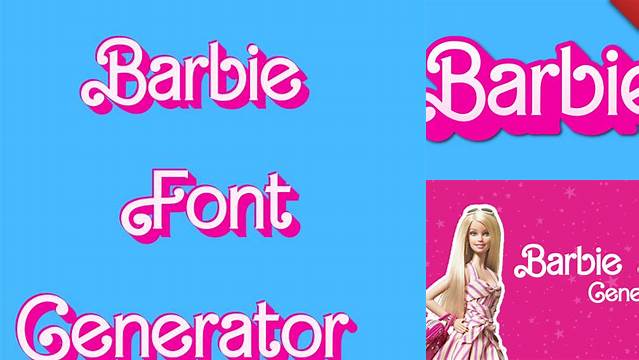
Barbie Font Generator: Free Online Text Design
Hey there, font lovers! Are you a fan of the iconic Barbie logo and its playful, dreamy aesthetic? Do you want to add a touch of that Barbie magic to your own designs, social media posts, or creative projects? Well, you're in luck! In this article, we're diving into the world of Barbie font generators, exploring how you can create your own stunning text inspired by the famous brand, all for free online. So, buckle up and let's get started!
What is the Barbie Font?
Before we jump into the generators, let's talk about the font itself. The Barbie font is instantly recognizable, a key element of the brand's identity. It's characterized by its bold, rounded letters, a playful and whimsical feel, and a touch of retro charm. Think of it as bubbly, energetic, and totally Barbie! The font has evolved over the years, but it has always maintained its signature fun and stylish personality. Understanding the nuances of the Barbie font, like its curves, thickness, and overall vibe, will help you appreciate the power of these online generators and how they can help you replicate that iconic look. Whether you're designing a party invitation, a social media graphic, or a fun logo, using a font that captures the essence of Barbie can instantly add a touch of glamour and playfulness.
Why Use a Barbie Font Generator?
Now, you might be wondering, why use a Barbie font generator? Can't I just download the font? Well, sometimes it's not that simple. Official brand fonts can be expensive or have licensing restrictions. That's where these generators come in handy! They offer a quick, easy, and often free way to create text that resembles the Barbie font. Think of them as a shortcut to getting that stylish look without the hassle of searching for and installing specific fonts. Plus, many generators offer customization options, allowing you to tweak the text with different colors, sizes, and effects. This means you can create unique designs that capture the spirit of Barbie while still being original. For anyone looking to add a touch of Barbie magic to their projects without breaking the bank, a Barbie font generator is a fantastic tool.
Top Free Barbie Font Generators Online
Okay, let's get to the good stuff! I've rounded up some of the best free Barbie font generators online that you can use to create your own amazing text. These tools are user-friendly, and most require no downloads or installations, making them super convenient. Here are a few of my favorites:
1. FlamingText
FlamingText is a popular online text generator that offers a wide variety of font styles and effects, including some that closely mimic the Barbie font. The interface is intuitive, and you can easily customize your text with different colors, gradients, and shadows. You can start creating eye-catching graphics by simply typing in your text, choosing a Barbie-inspired font from their extensive library, and then playing with the customization options until you achieve your desired look. The real strength of FlamingText lies in its versatility; whether you need a logo, a banner, or just some fancy text for a social media post, this generator has you covered. Plus, it's completely free to use for basic designs, making it a perfect choice for hobbyists and small businesses alike. It's a fantastic resource for anyone looking to add a professional touch to their projects without the need for expensive software or design skills. Guys, you should really check this one out!
2. Font Generator Online
Font Generator Online is another great option for creating Barbie-inspired text. This tool provides a simple interface where you can type your text and then browse through a selection of generated font styles. While it might not have an exact replica of the Barbie font, it offers several fonts that capture the same playful and bubbly vibe. This platform is particularly useful for quickly generating a variety of text styles, allowing you to easily compare different options and choose the one that best suits your project. In addition to its ease of use, Font Generator Online stands out for its sheer variety of styles. From elegant scripts to bold, cartoonish fonts, you're sure to find something that catches your eye. Customization options are also available, letting you tweak the size, color, and even add effects like shadows and outlines. Whether you're working on a personal project or need something for commercial use, Font Generator Online provides a reliable and accessible way to create stylish text in minutes. It’s a great tool for quickly experimenting with different looks and feels.
3. Cool Text
Cool Text is a classic online text generator that has been around for years. It's known for its vast collection of pre-designed text styles, many of which have a fun and retro feel that aligns well with the Barbie aesthetic. With Cool Text, you simply input your desired text, select a style that resonates with the Barbie font, and then customize the colors, size, and other effects to match your vision. One of the standout features of Cool Text is its simplicity. The interface is straightforward and easy to navigate, making it a great choice for beginners and those who need to generate text quickly. The platform also offers a range of customization options, allowing you to fine-tune your text to perfectly fit your project's needs. Whether you're creating a banner for a website, designing a logo, or just adding some flair to a presentation, Cool Text provides a reliable and user-friendly solution. Plus, it's free to use, making it an accessible option for anyone looking to add some creative text to their designs. I think this is a must-try, guys!
4. TextGiraffe
TextGiraffe is a user-friendly online generator that offers a variety of text effects, some of which can be tailored to resemble the iconic Barbie font. Its strength lies in its simplicity and the speed at which you can create visually appealing text graphics. Just type in your text, select a suitable style, and tweak the settings to achieve the desired look. What sets TextGiraffe apart is its focus on ease of use. The interface is clean and intuitive, making it accessible to users of all skill levels. You don't need any design experience to create impressive text effects. Additionally, TextGiraffe provides a range of customization options, including font size, color, and special effects, allowing you to personalize your designs to match your specific needs. Whether you're working on social media graphics, website banners, or print materials, TextGiraffe offers a convenient and efficient way to generate eye-catching text. It’s a great tool for anyone looking for quick and impressive results without the hassle of complicated design software. It's definitely worth checking out if you need something fast and fabulous!
Tips for Creating the Perfect Barbie-Inspired Text
Now that you know about some great Barbie font generators, let's talk about how to make your text truly shine. Here are a few tips for creating the perfect Barbie-inspired design:
- Choose a font that captures the essence: Look for fonts that are rounded, bold, and slightly retro in style. Think bubbly and playful!
- Embrace the pink: Pink is Barbie's signature color, so don't be afraid to incorporate it into your text. Varying shades of pink can add depth and interest.
- Add some sparkle: A touch of glitter or a subtle shimmer effect can really enhance the Barbie vibe.
- Consider the context: Think about where your text will be used and adjust the style accordingly. A party invitation might call for a more extravagant font, while a social media post might benefit from something simpler.
- Play with colors: While pink is iconic, don't be afraid to experiment with other colors that complement the Barbie aesthetic, such as purples, blues, and yellows.